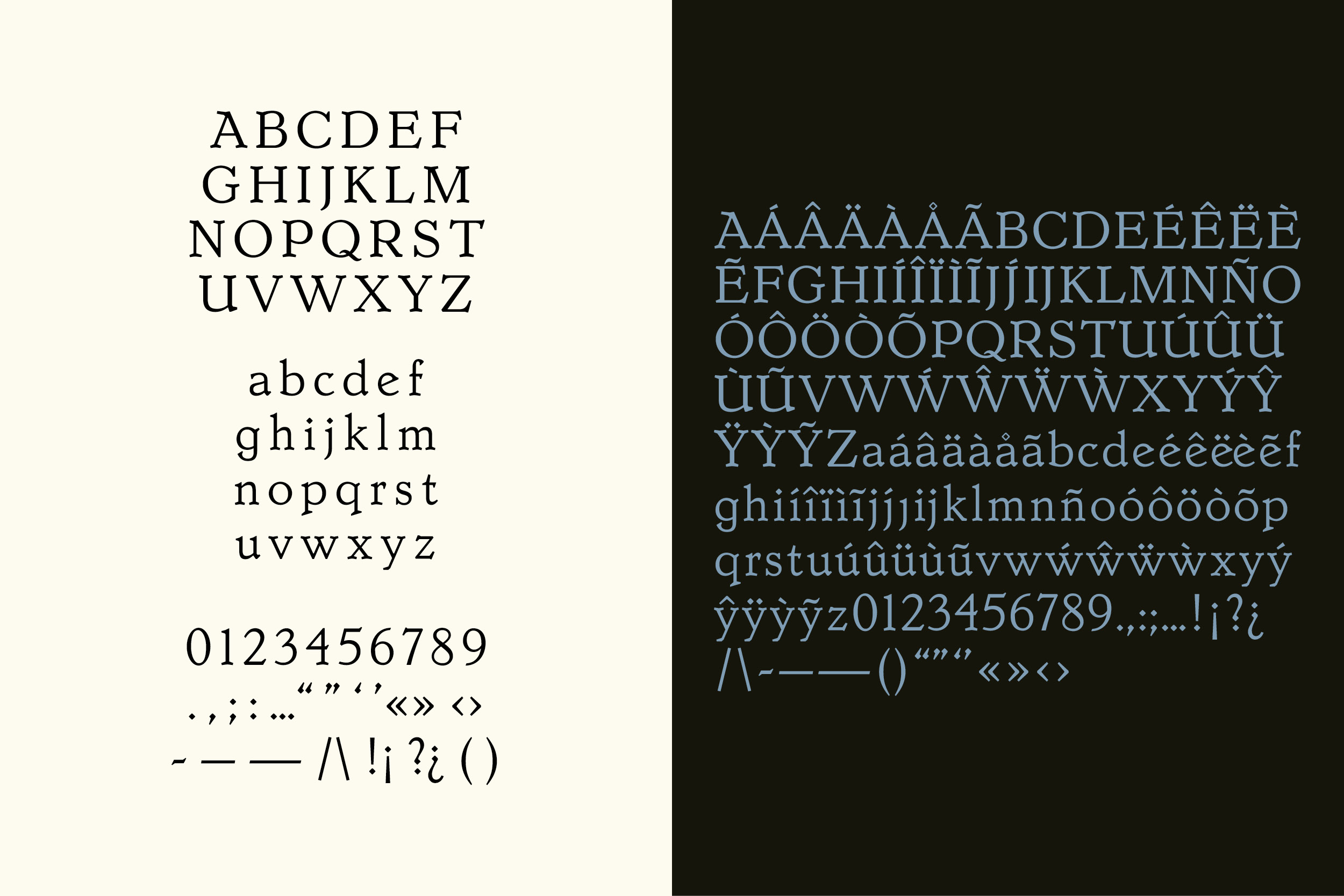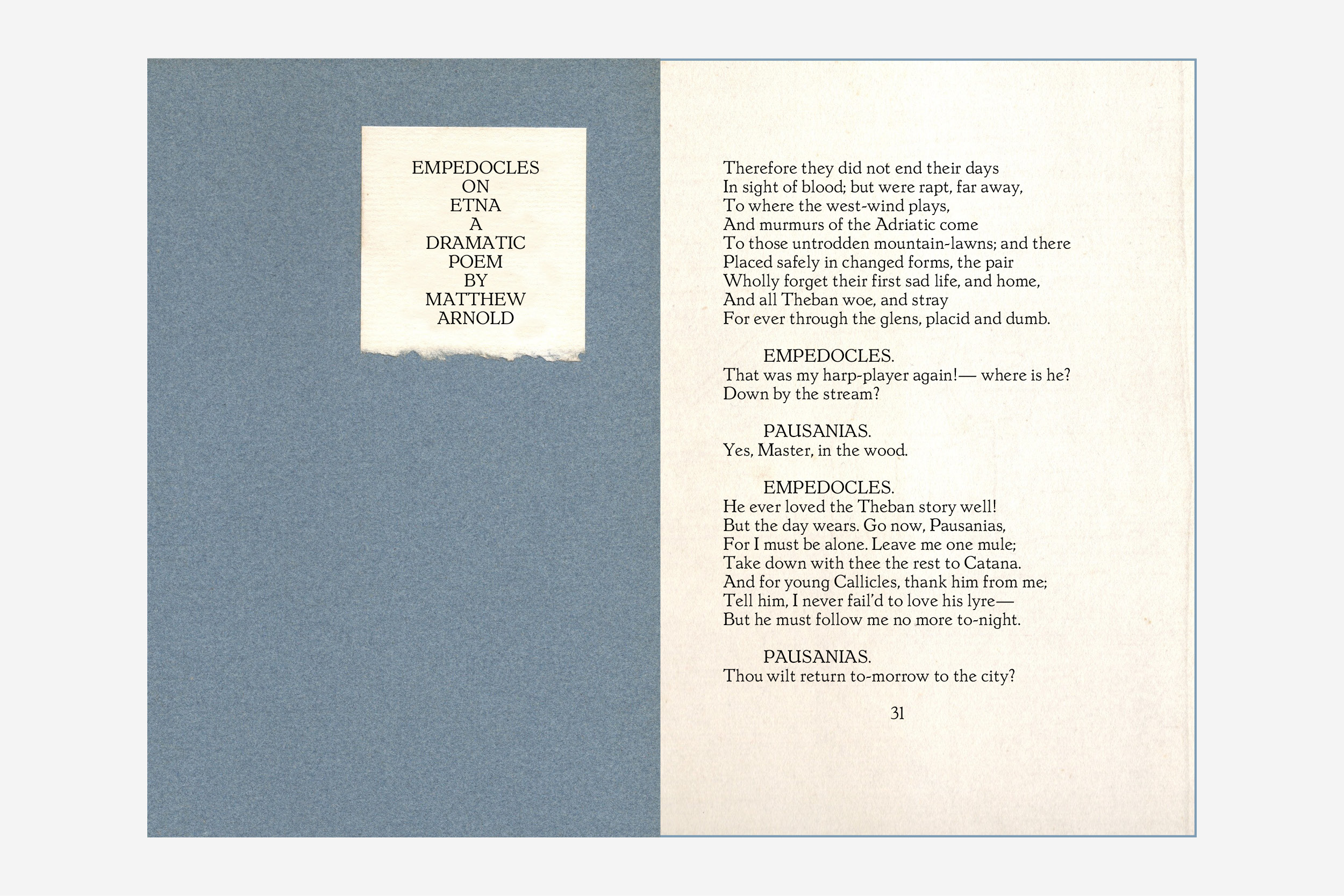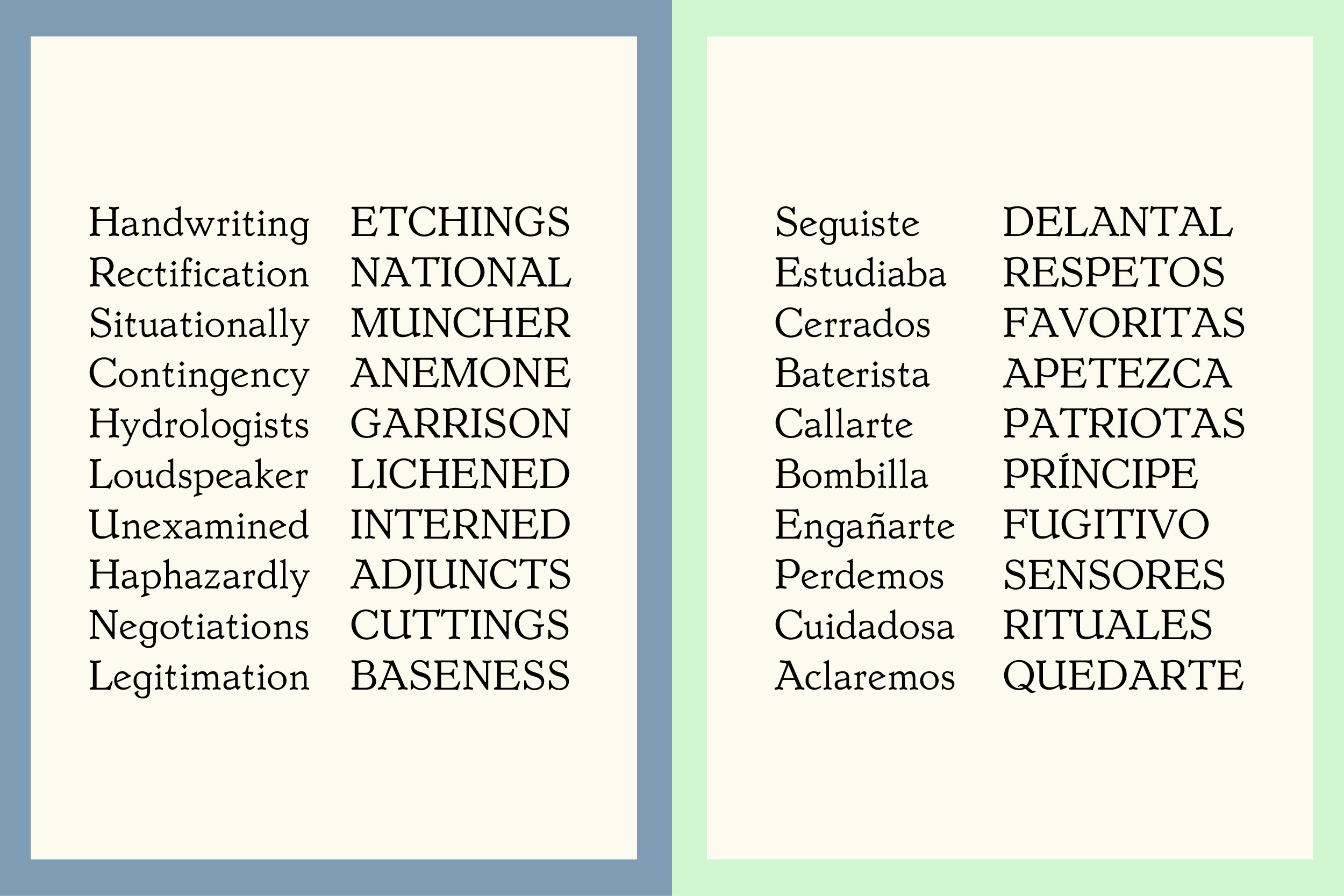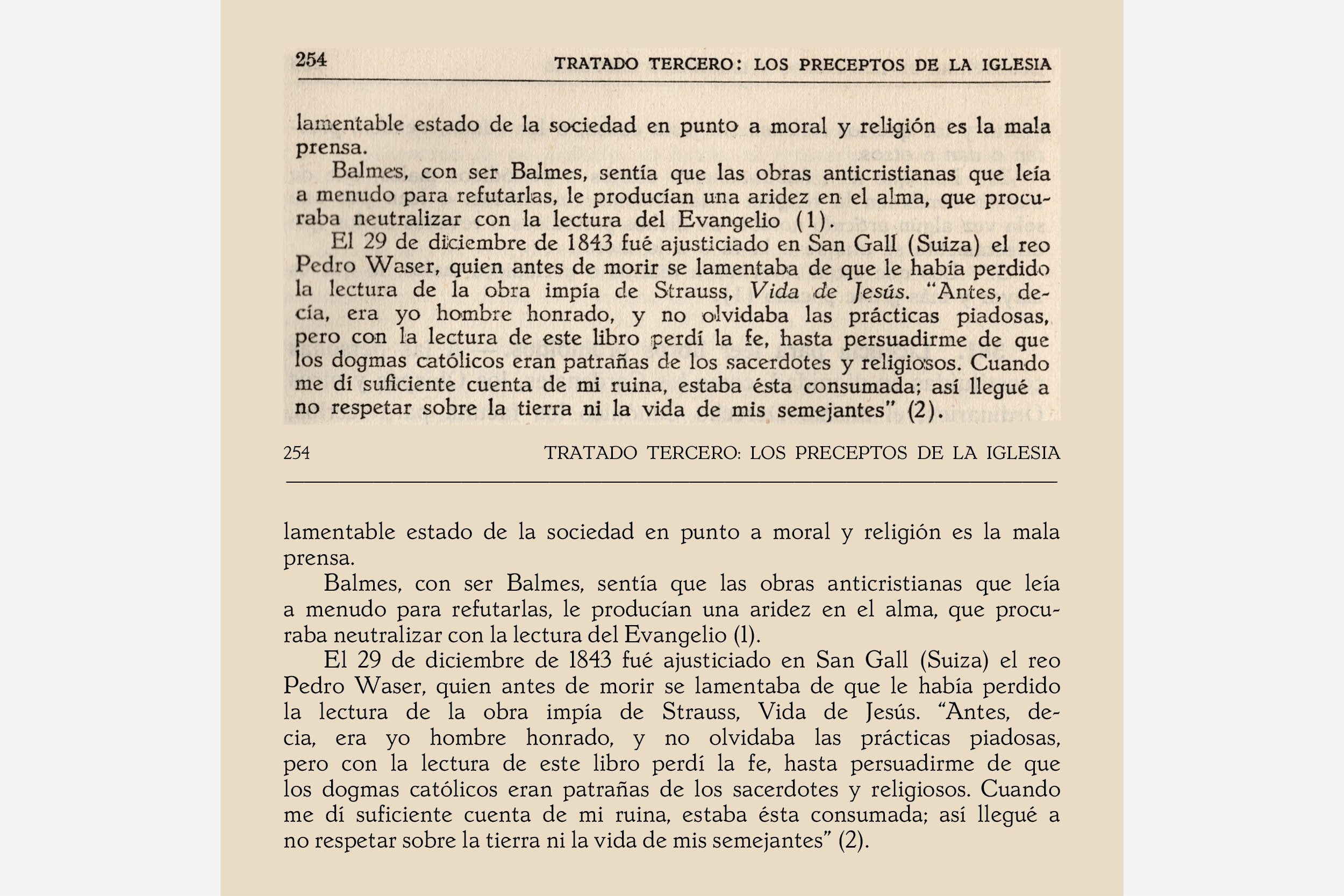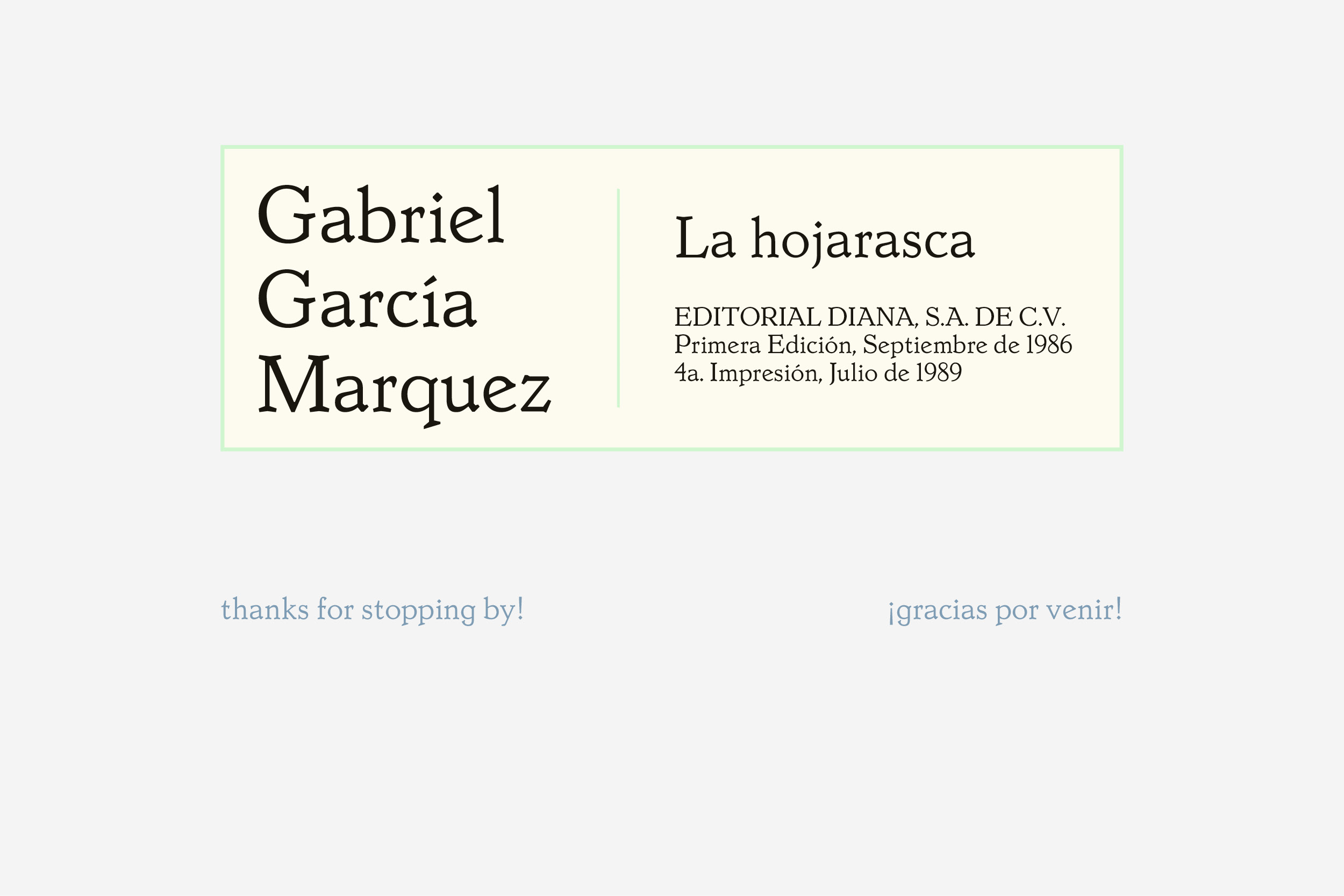
Hojaldre Medieval
Aitana Cantú
While searching through old books at my grandparents house in Spain, I found the source for what became
Hojaldre Medieval. Printed in 1940, “Cultura Religiosa: Dogma, La Moral, La Gracia” was a religion textbook
my grandma had to read when she was 13. I was hesitant at first to pursue this typeface because the book was printed during the height of Franco’s
dictatorship and is about religious obedience. But when I continued my research, it turned out that the type
designer, Sjoerd Hendrik de Roos (1877-1962), was a staunch supporter of the first socialist in the Dutch
parliament.
Hollandsche Mediaeval was made in 1912 by S. H. de Roos at the Amsterdam Type Foundry. It was the first
Dutch-made typeface for 150 years and considered the first modern typeface in the Netherlands.